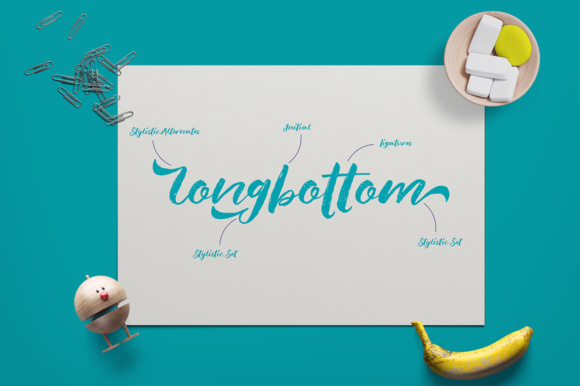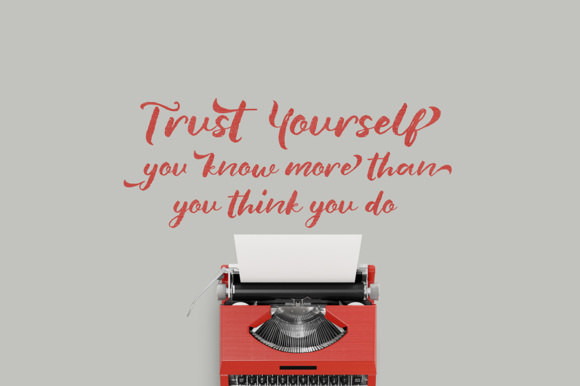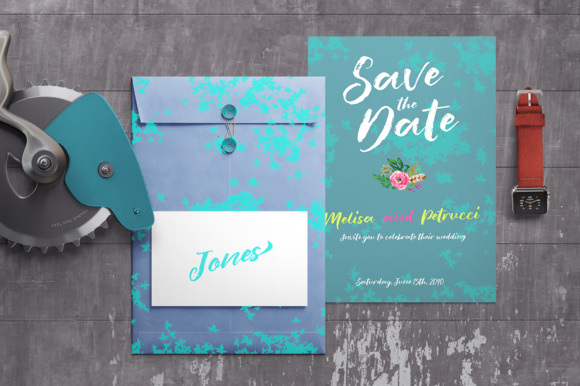
About Blank Monkey Font
Blank Monkey is a highly stylized handwritten font, made to give your projects an elegant and refined impression without being stuffy or pretentious. This calligraphy font is relaxed and has a little texture so your work can look a little worn in and relaxed.